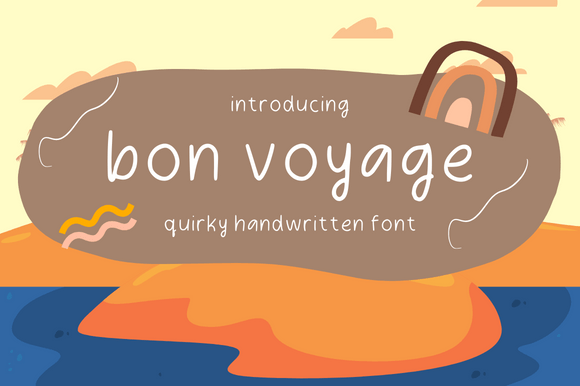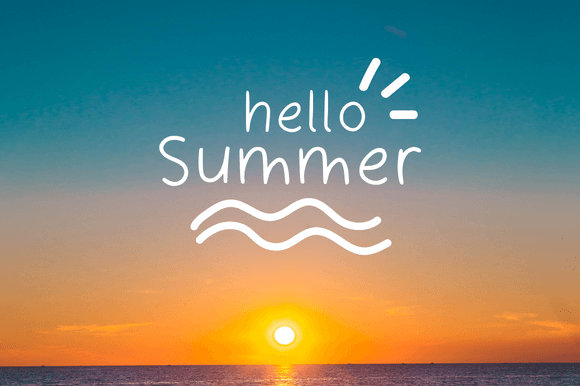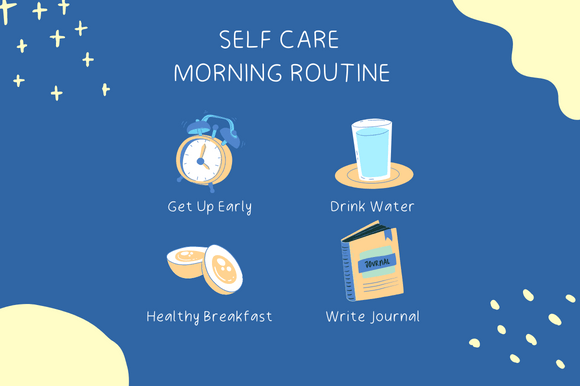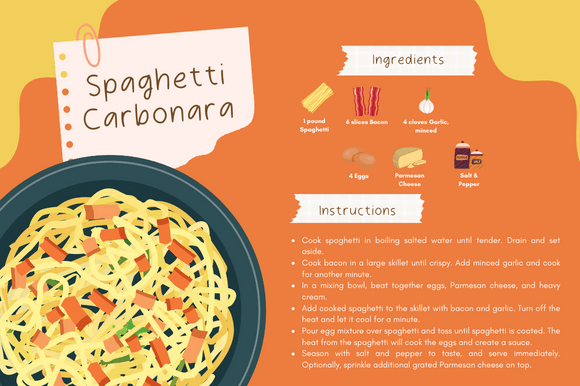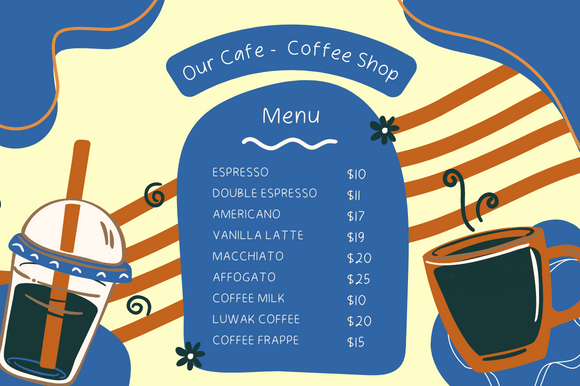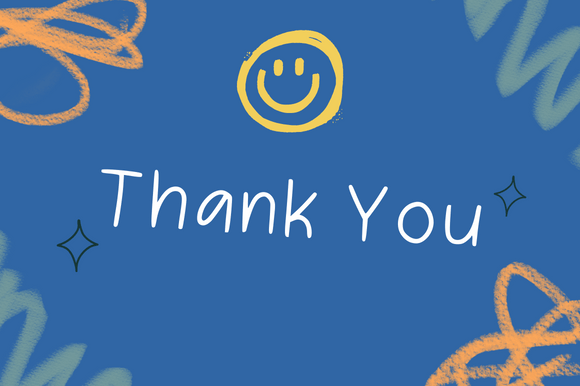
Introducing Bon Voyage Font: The Ultimate Display Font for Friendly Designs
Are you tired of using the same old fonts for your designs, crafts, and digital projects? Look no further! Bon Voyage Font is here to revolutionize the way you create friendly and engaging content. This childish, easy-to-read display font is perfect for crafts, digital design, presentations, and even making greeting cards. With its impeccable friendliness, Bon Voyage Font has the potential to become your favorite go-to font, no matter the occasion!
The Characteristics of Bon Voyage Font
Bon Voyage Font is a unique and charming display font that boasts a range of characteristics that make it perfect for friendly designs. Here are a few of its standout features:
• Childish and Playful: Bon Voyage Font has a youthful and carefree vibe that’s perfect for designs that require a touch of whimsy and fun.
• Easy-to-Read: The font’s clear and simple design makes it easy to read, even at smaller sizes.
• Impeccable Friendliness: The font’s friendly tone is perfect for creating welcoming and approachable designs.
• Versatile: Bon Voyage Font can be used for a wide range of projects, from crafts and digital design to presentations and greeting cards.
Uses for Bon Voyage Font
Bon Voyage Font is an incredibly versatile font that can be used for a wide range of projects. Here are a few ideas to get you started:
• Crafts: Use Bon Voyage Font to add a personal touch to your craft projects, such as scrapbooking, card making, and DIY gifts.
• Digital Design: Add a friendly touch to your digital designs, such as social media graphics, blog posts, and website headers.
• Presentations: Use Bon Voyage Font to create engaging and easy-to-read presentations for work or school.
• Greeting Cards: Create personalized and friendly greeting cards for special occasions, such as birthdays, holidays, and graduations.
Why Choose Bon Voyage Font?
With so many fonts to choose from, why should you choose Bon Voyage Font? Here are a few reasons why:
• Unique and Eye-Catching: Bon Voyage Font is a one-of-a-kind font that will help your designs stand out from the crowd.
• High-Quality: Bon Voyage Font is a high-quality font that is designed to produce crisp and clear results, even at smaller sizes.
• Support for Multiple Languages: The font supports multiple languages, making it perfect for international designs.
Tips for Using Bon Voyage Font
Here are a few tips for getting the most out of Bon Voyage Font:
• Experiment with Different Sizes: Bon Voyage Font looks great at a range of sizes, from small to large. Experiment with different sizes to find the one that works best for your design.
• Pair with Other Fonts: Bon Voyage Font pairs well with other fonts, such as sans-serif and script fonts. Experiment with different font combinations to find the one that works best for your design.
• Use for Headings and Titles: Bon Voyage Font is perfect for headings and titles, where its friendly and playful tone can really shine.
Bon Voyage Font is a unique and charming display font that’s perfect for friendly designs. With its childish and playful tone, easy-to-read design, and impeccable friendliness, it’s the perfect font for crafts, digital design, presentations, and greeting cards. Whether you’re a designer, crafter, or simply someone who loves to create, Bon Voyage Font is a must-have font that will help you create engaging and memorable designs. So why wait? Download Bon Voyage Font today and start creating your own friendly and engaging designs!